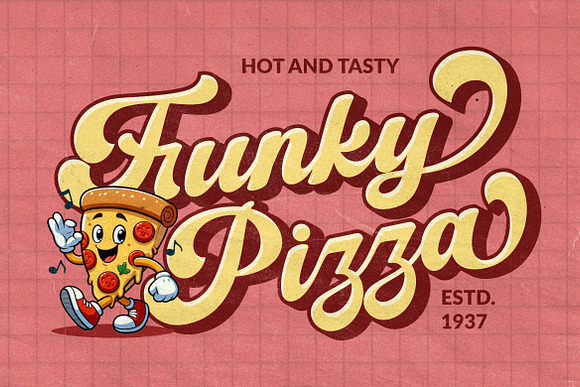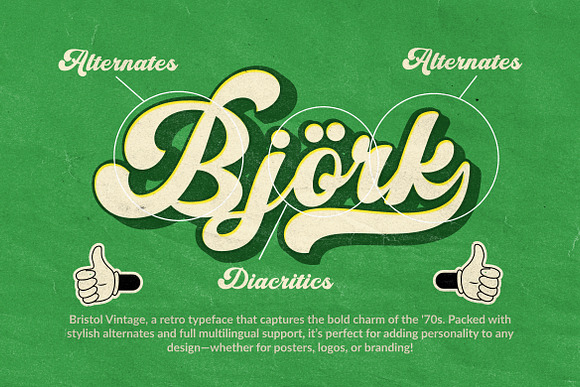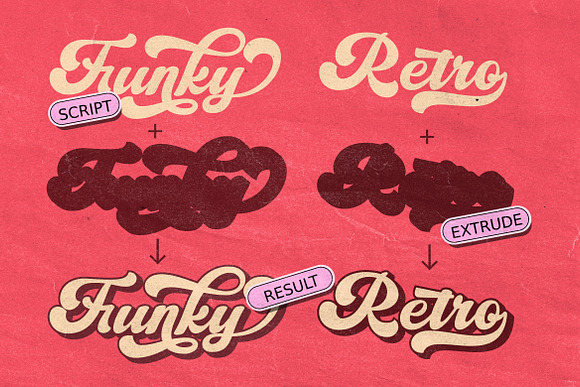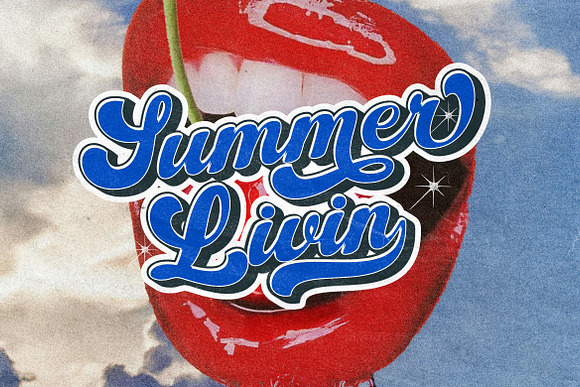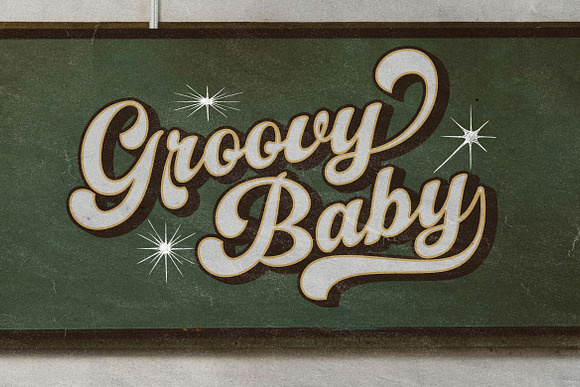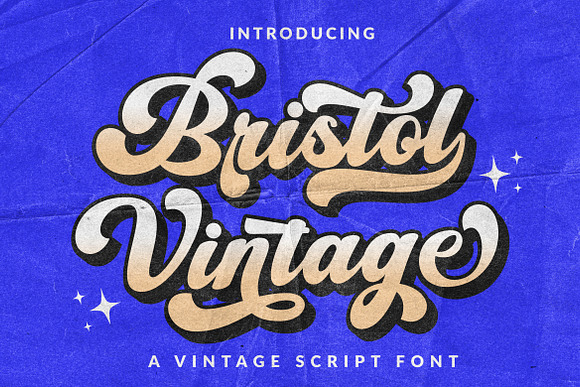
Bristol Vintage Font
Bristol Script is a retro script font with a vintage feel. This font is cute, unique, and cheerful. Bristol Script has many additional glyphs to give designers more options in designing with this font. This font also has extrusion styles to add shadows or layers to the regular style. This font is perfect for any project, especially vintage ones, such as logos, crafts, wedding invitations, branding, stickers, sublimation, quotes, and more. Uppercase and Lowercase (including additional PUA encoded glyphs) Numbers and Punctuation Accents Multilingual Best Works in any software, such as Adobe Photoshop, Illustrator, Silhouette Studio, and more. Included files: OTF & TTF